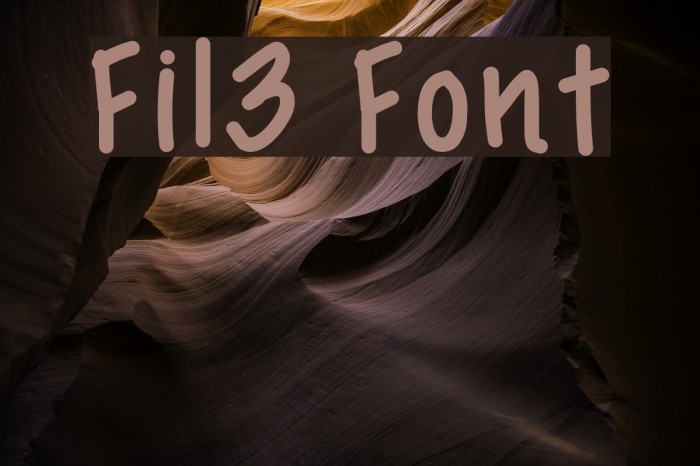
Fil3 Font
This font features a playful and casual handwritten style, characterized by its bold and rounded letterforms. The strokes are consistent in width, giving it a uniform appearance. The uppercase letters are slightly taller than the lowercase, with a whimsical touch that adds a friendly and approachable feel. The numerals and special characters maintain the same playful aesthetic, making it versatile for various informal applications. Its legibility and charm make it suitable for designs that aim to convey warmth and creativity.
A playful, bold handwritten font with rounded, consistent strokes.
- Proposed Projects: Ideal for children's books, greeting cards, playful branding, and casual invitations.
- Overall Style: Casual, Playful
- Use Case: Headlines, Logos, Informal Text